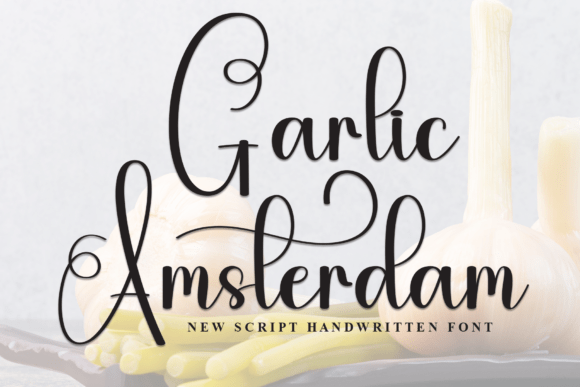
Garlic Amsterdam Font: Elevate Your Designs with Elegance and Playfulness
In the world of typography, few fonts manage to strike a balance between elegance and playfulness. Garlic Amsterdam Font is one such exceptional typeface that brings a unique blend of sophistication and charm to the table. This stylish handwritten script font has been designed to capture the essence of refinement and creativity, making it an ideal choice for a wide range of design projects.
Key Features of Garlic Amsterdam Font
- Flowing Curves: Garlic Amsterdam Font boasts smooth, flowing curves that give it a natural rhythm, making it perfect for creating visually appealing text.
- Handwritten Script: The font’s handwritten script style adds a personal touch to any design, making it suitable for invitations, branding, and social media.
- Elegance and Playfulness: The font masterfully balances elegance and playfulness, allowing designers to create a wide range of designs, from sophisticated to whimsical.
Design Applications of Garlic Amsterdam Font
Garlic Amsterdam Font’s versatility makes it an excellent choice for various design projects. Here are some of the ways you can use this font:
- Invitations: Add a touch of elegance and sophistication to your wedding invitations, birthday parties, or other special events.
- Branding: Use Garlic Amsterdam Font to create a unique and memorable brand identity that stands out from the competition.
- Social Media: Elevate your social media presence with this font’s playful and charming style, perfect for creating engaging content.
- Packaging: Add a personal touch to your product packaging with Garlic Amsterdam Font, making it more appealing to customers.
Typographic Benefits of Garlic Amsterdam Font
Garlic Amsterdam Font offers several typographic benefits that make it an attractive choice for designers:
- Readability: The font’s clear and flowing design ensures excellent readability, even at small sizes.
- Legibility: Garlic Amsterdam Font’s unique character set and spacing make it easy to distinguish between letters, reducing confusion.
- Flexibility: The font’s style can be adjusted to suit various design requirements, from formal to informal.
Design Tips for Using Garlic Amsterdam Font
To get the most out of Garlic Amsterdam Font, consider the following design tips:
- Pair with contrasting fonts: Combine Garlic Amsterdam Font with a contrasting font to create visual interest and hierarchy.
- Adjust font sizes: Experiment with different font sizes to create emphasis and add depth to your design.
- Use creative colors: Take advantage of Garlic Amsterdam Font’s versatility by using creative colors that match your brand or design theme.
Comparison with Other Fonts
Garlic Amsterdam Font stands out from other script fonts due to its unique blend of elegance and playfulness. Here’s a comparison with other popular fonts:
- Pacifico: While Pacifico is a beautiful script font, Garlic Amsterdam Font offers a more distinctive and elegant style.
- Great Vibes: Garlic Amsterdam Font’s flowing curves and natural rhythm set it apart from Great Vibes, which has a more rigid structure.
- Carolyna Pro: Garlic Amsterdam Font’s handwritten script style gives it a more personal touch compared to Carolyna Pro, which has a more formal feel.
In conclusion, Garlic Amsterdam Font is a versatile and elegant typeface that can elevate your designs with its unique blend of sophistication and playfulness. Its flowing curves, natural rhythm, and handwritten script style make it perfect for a wide range of design projects, from invitations and branding to social media and packaging. With its excellent readability, legibility, and flexibility, Garlic Amsterdam Font is an excellent choice for designers looking to add a personal touch to their creations.
Final Thoughts
Garlic Amsterdam Font is a stylish and charming typeface that can bring warmth, sophistication, and creativity to any project. Whether you’re a seasoned designer or just starting out, this font is sure to inspire you to create something truly special. So why not give Garlic Amsterdam Font a try and experience the power of elegant and playful typography for yourself?